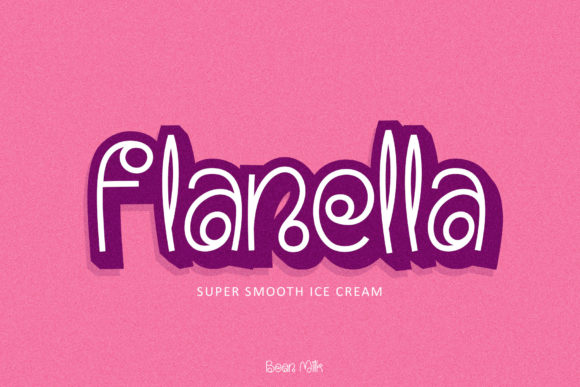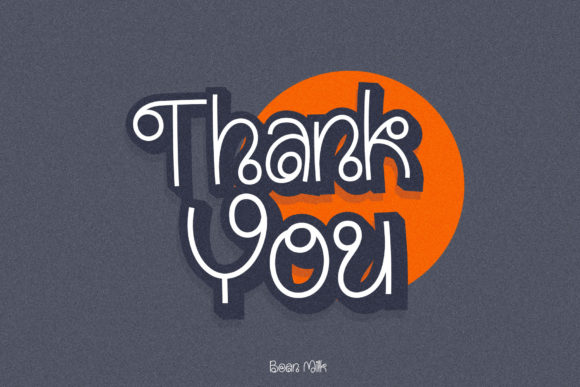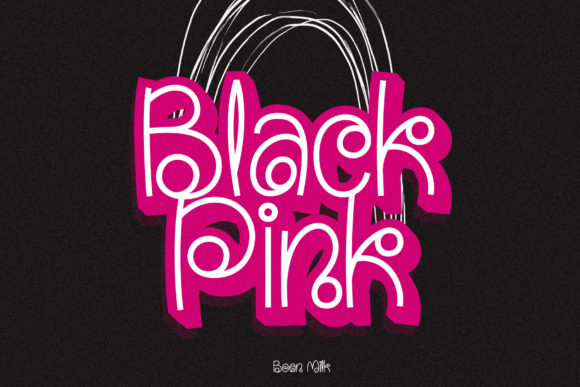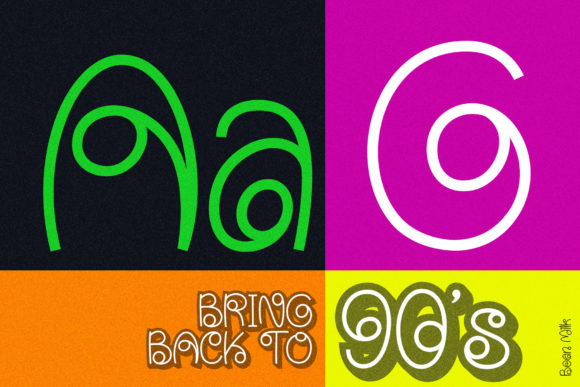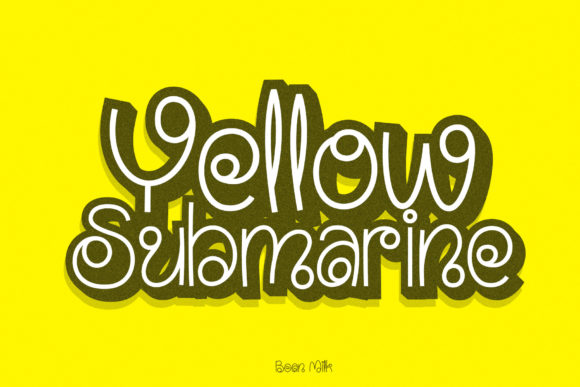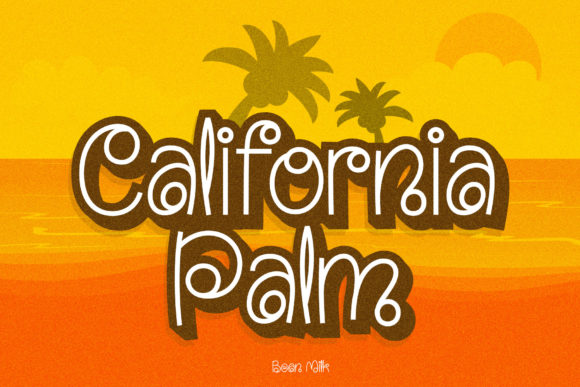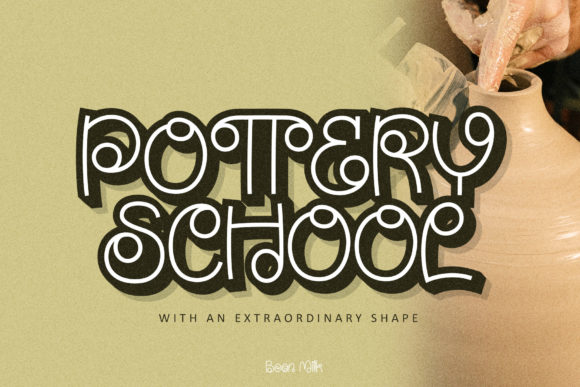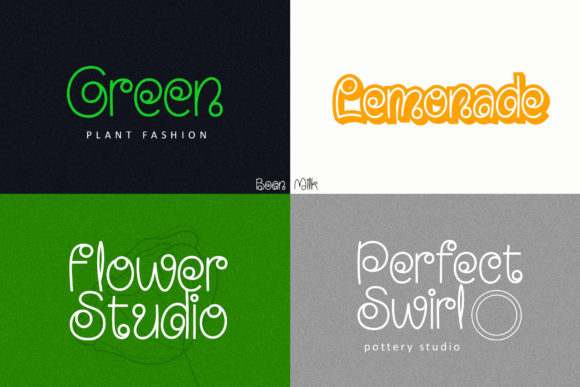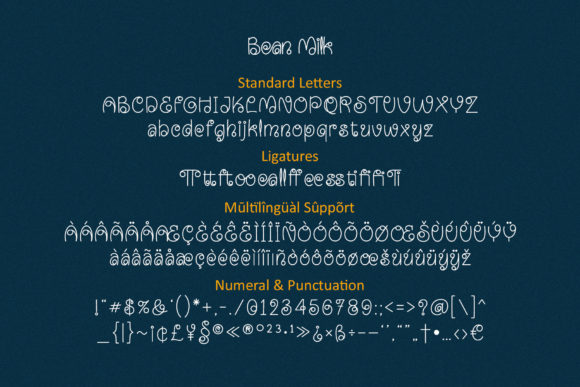
Bean Milk Font
About Bean Milk Font
Bean Milk stands out as a playful swirl script font that encapsulates a perfect blend of style, fun, and elegance. This unique typeface possesses a catchy and dynamic quality, coupled with a simplicity that exudes a humanist touch. Its clean lines and easy-to-use design make it a versatile font that effortlessly brings good harmony when letters are connected and paired with each other.
The playful swirls of Bean Milk contribute to its stylish and fun character, making it an ideal choice for a wide range of creative projects. Whether you’re working on branding, advertising, invitations, social media posts, or any other design endeavor, Bean Milk injects a sense of liveliness and vibrancy into your compositions.
The font’s elegance shines through in its clean and well-crafted design, adding a touch of sophistication to your visual communication. Its versatility allows for seamless pairing with various design elements, making it adaptable to diverse themes and contexts. Bean Milk ensures that the connection between letters is not only visually pleasing but also enhances the overall aesthetics of your projects.
Incorporate Bean Milk into your designs to infuse a sense of playfulness and energy. Its dynamic and catchy nature makes it suitable for conveying a range of emotions and themes, from lighthearted and friendly to modern and chic. The font’s simplicity and easy-to-read style ensure that it remains user-friendly, catering to a broad audience.
In summary, Bean Milk is more than just a playful swirl script; it is a versatile and stylish design tool that adds a unique touch to your creative endeavors. With its dynamic, clean, and humanist qualities, this font effortlessly brings harmony to connected letters, making it an excellent choice for designers seeking a font that balances playfulness with elegance across a variety of applications.